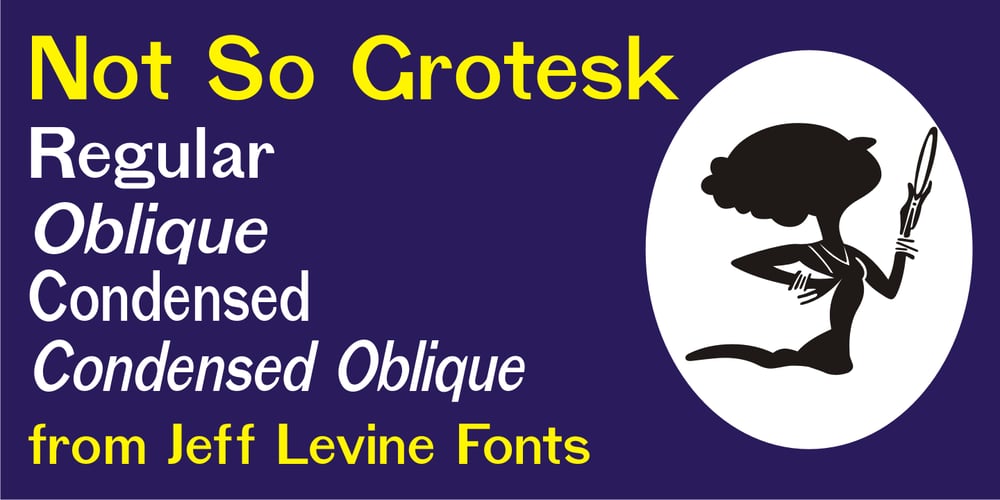
Not So Grotesk JNL Font Family was designed by Jeff Levine and published by Jeff Levine. Not So Grotesk JNL contains 4 styles and family package options. A circa-1920s book on lettering entitled “Book of Alphabets” by Regan Publishing displayed an example of a Grotesk typeface (a popular style of sans serif of the time). This design was re-drawn digitally as Not So Grotesk JNL and is available in four varieties – regular, oblique, condensed and condensed oblique. Not So Grotesk JNL is the perfect companion font family to use alongside Simply Grotesk JNL.